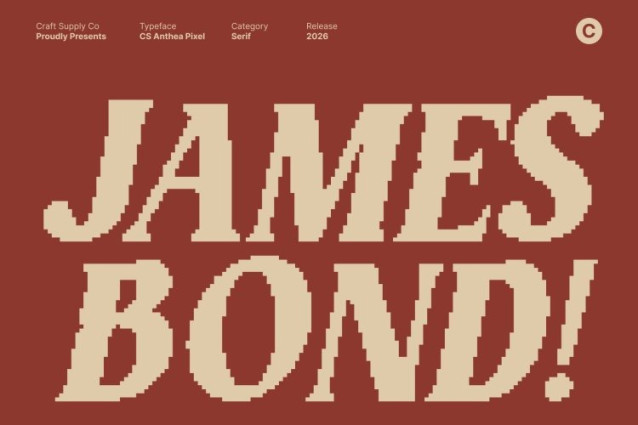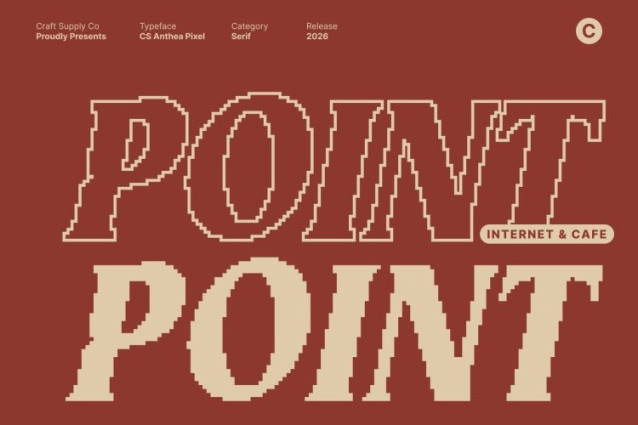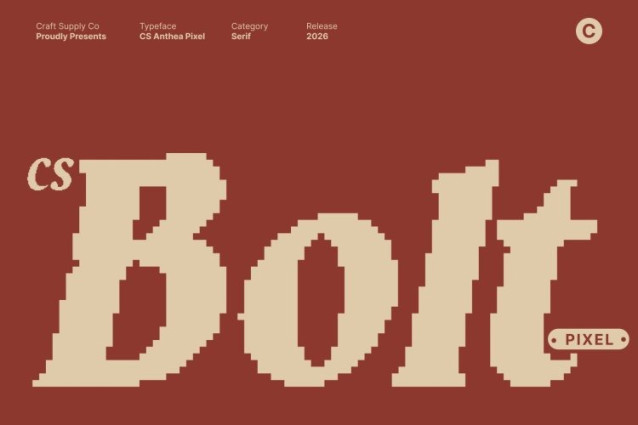
CS Bolt Pixel Font
CS Bolt Pixel Font This is a bold serif typeface designed to command attention through strong weight and confident structure. Its solid, pixel-precise letterforms create immediate visual impact, conveying authority, stability, and modern confidence. Built to stand out, this font delivers a powerful presence while remaining visually balanced and controlled.
Strength Balanced with Playful Softness
What sets this font apart is its unique harmony between strength and softness. The bold strokes project dominance and clarity, while subtle curves and rounded details introduce a playful, approachable character. This balance prevents rigidity, allowing the font to feel expressive, friendly, and energetic without losing its assertive core.
Modern Energy and Expressive Character
With a fresh, contemporary design language, this font brings expressive energy to modern layouts. Its bold construction ensures impact in high-visibility applications, while the nuanced details add personality and memorability. The result is typography that feels powerful yet engaging.
Ideal for Headlines and Impact Branding
This font excels in headlines, posters, and impactful branding. Whether used for bold brand identities, statement typography, or eye-catching promotional materials, it delivers a confident, modern look with a distinctive blend of strength and softness perfect for designs that demand attention and character.